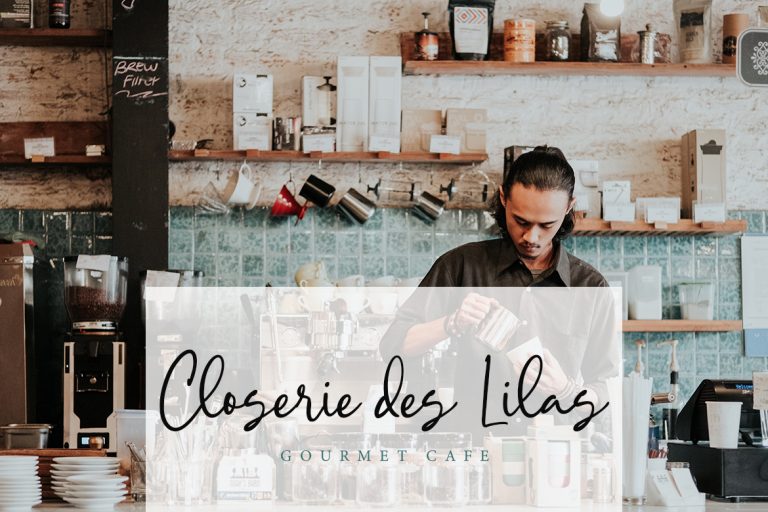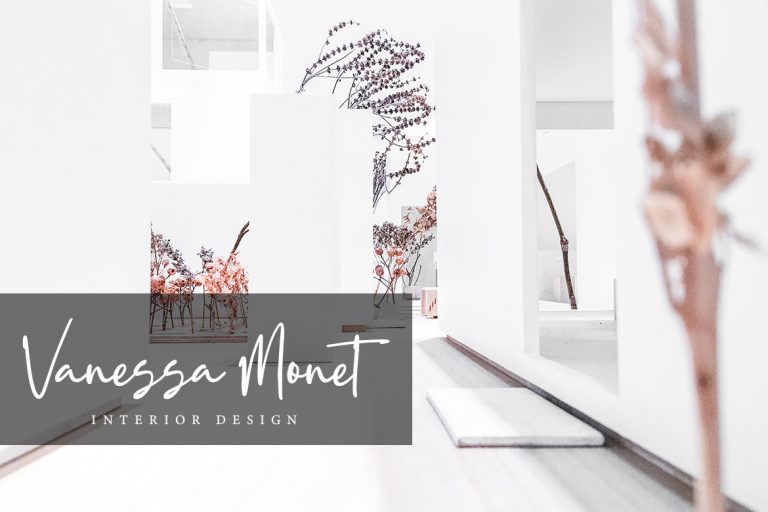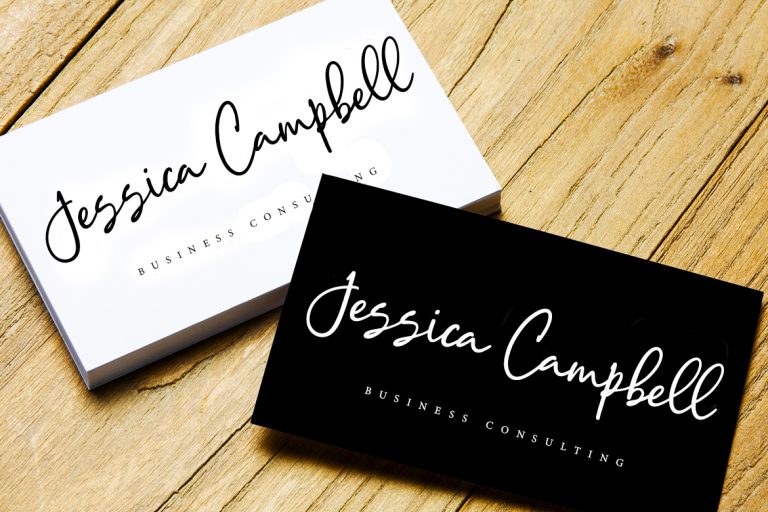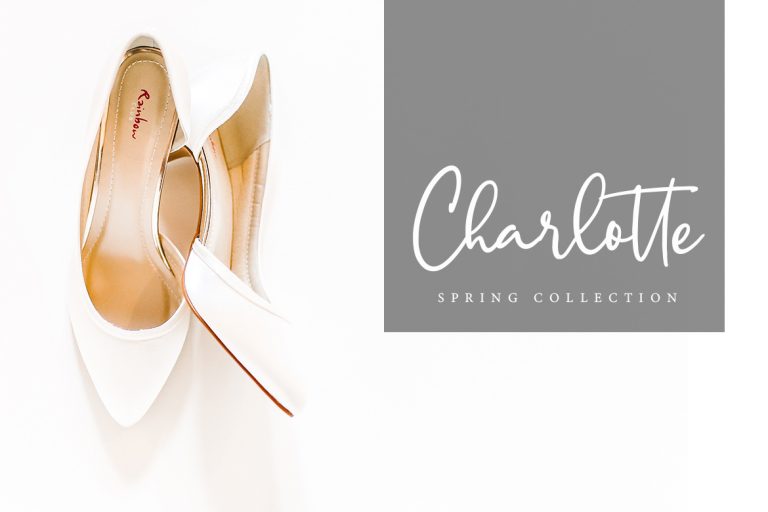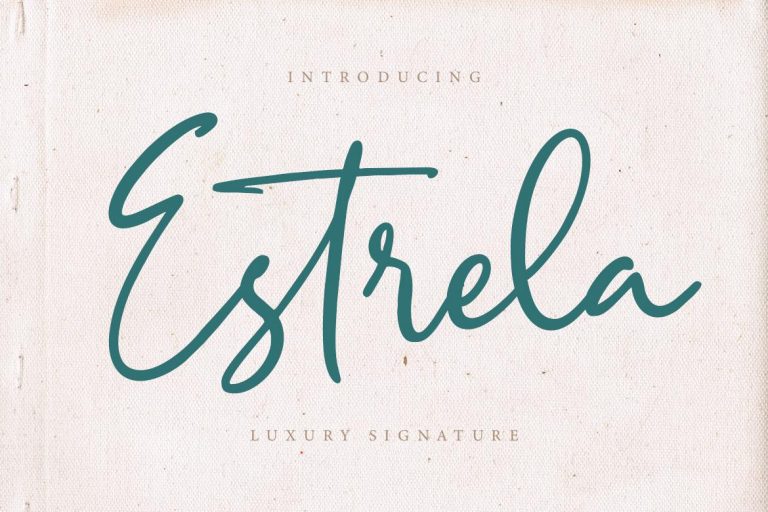
Estrela Luxury Signature is handwritten script font with luxury signature style that make your latest projects can be awesome.
Estrela Luxury Signature is perfect for branding projects, logo, wedding designs, social media posts, advertisements, product packaging, product designs, label, photography, watermark, invitation, stationery and any projects that need handwriting taste.
Estrela Luxury Signature Font